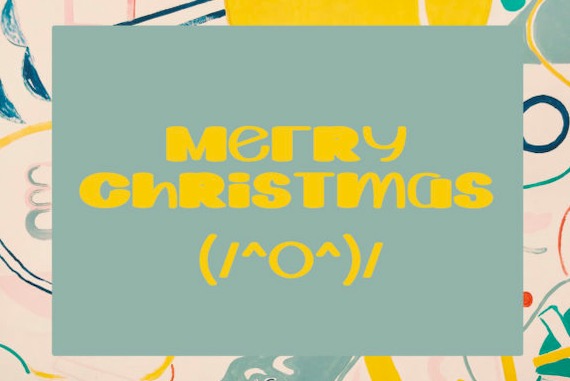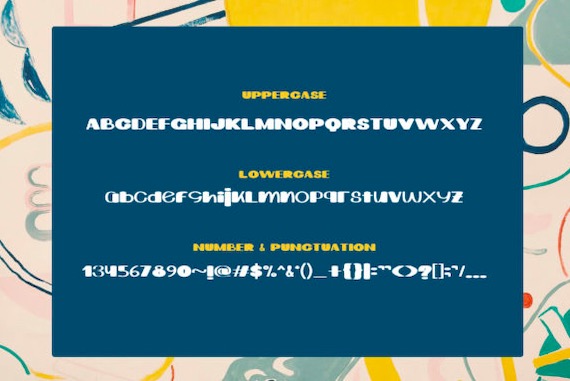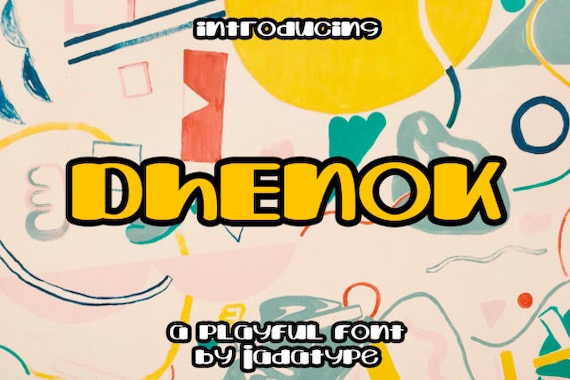
Dhenok Font is a cheerful & funny display font typeface that was created and shared by Jadatype Studio along with a friendly feel in every character. Whether you are using it for cartoon-related designs, children’s games, quotes, titles, brand names, book covers, posters, or just any creation that requires a touch of joy, this font is a great choice.
Dhenok Display Font